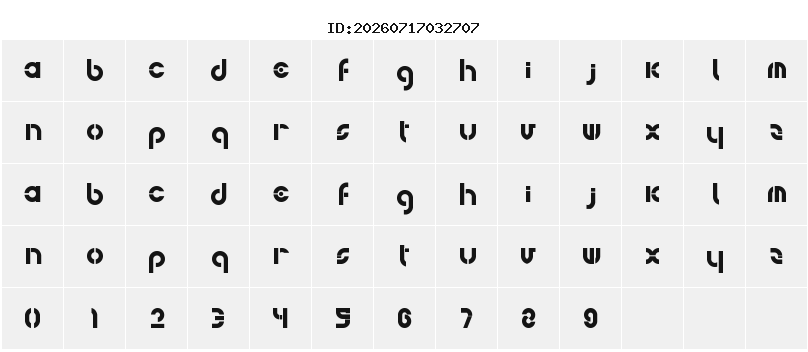
bohemica Preview
• Font Name: bohemica
• Full Font Name: bohemica
• Version: Version 1.00 June 12, 2005, initial release
About bohemica.ttf
bohemica.ttf is a modern, elegant sans-serif font designed for ultimate readability and visual harmony. Perfect for branding, headlines, web design, and print materials.